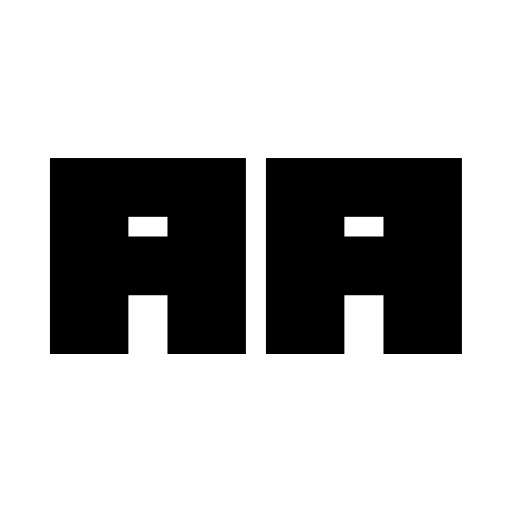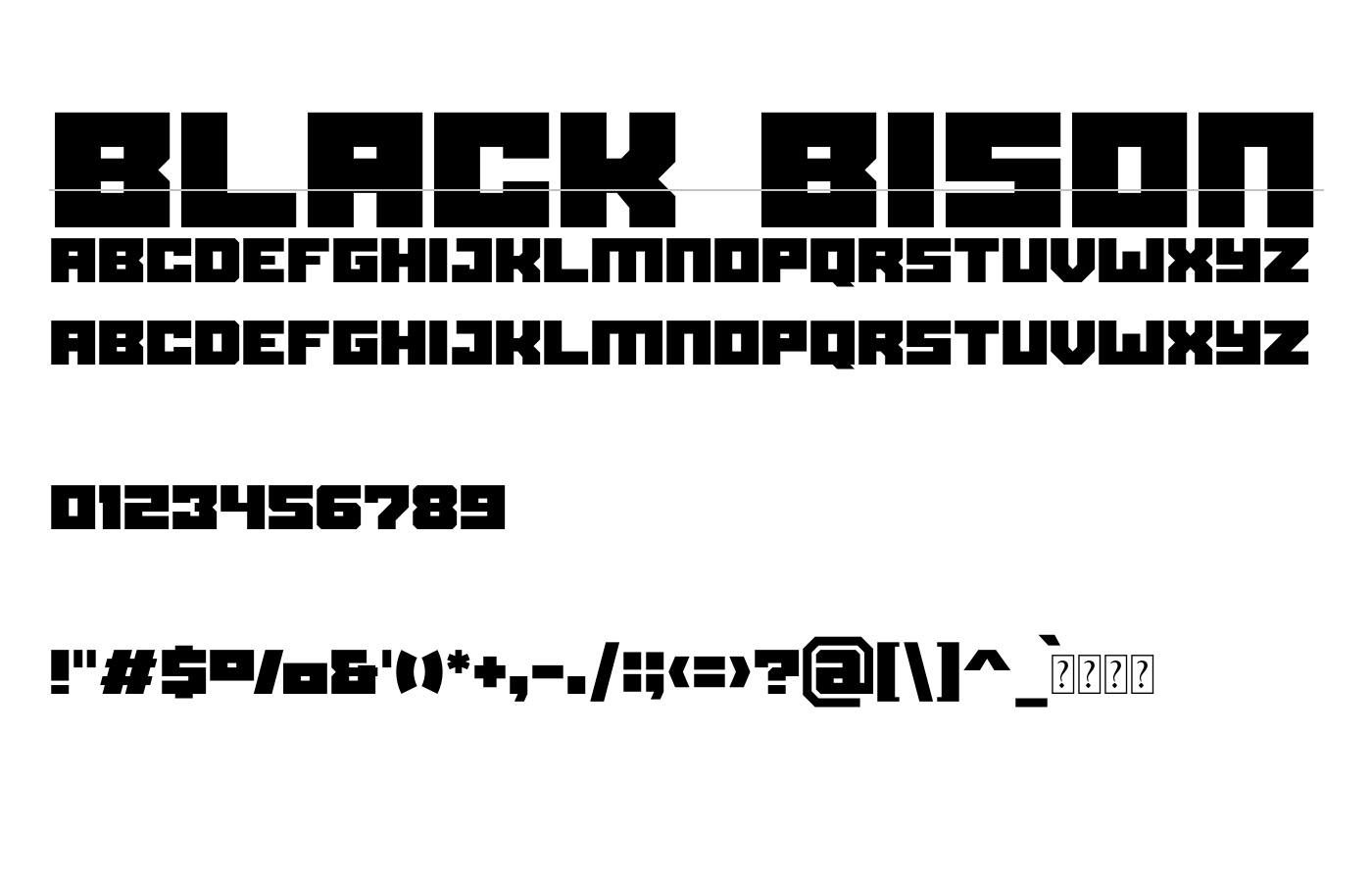
Black Bison is a bold, heavy-weight sans serif font with a strong geometric structure and sharp, angular edges, giving it a powerful and modern feel. Its wide, blocky letterforms and high contrast between thick strokes make it ideal for impactful headlines, logos, and branding where a sense of strength and confidence is desired. This font works best in designs that demand attention and convey a rugged, industrial, or futuristic vibe.
Black bison Font
About Black bison Font